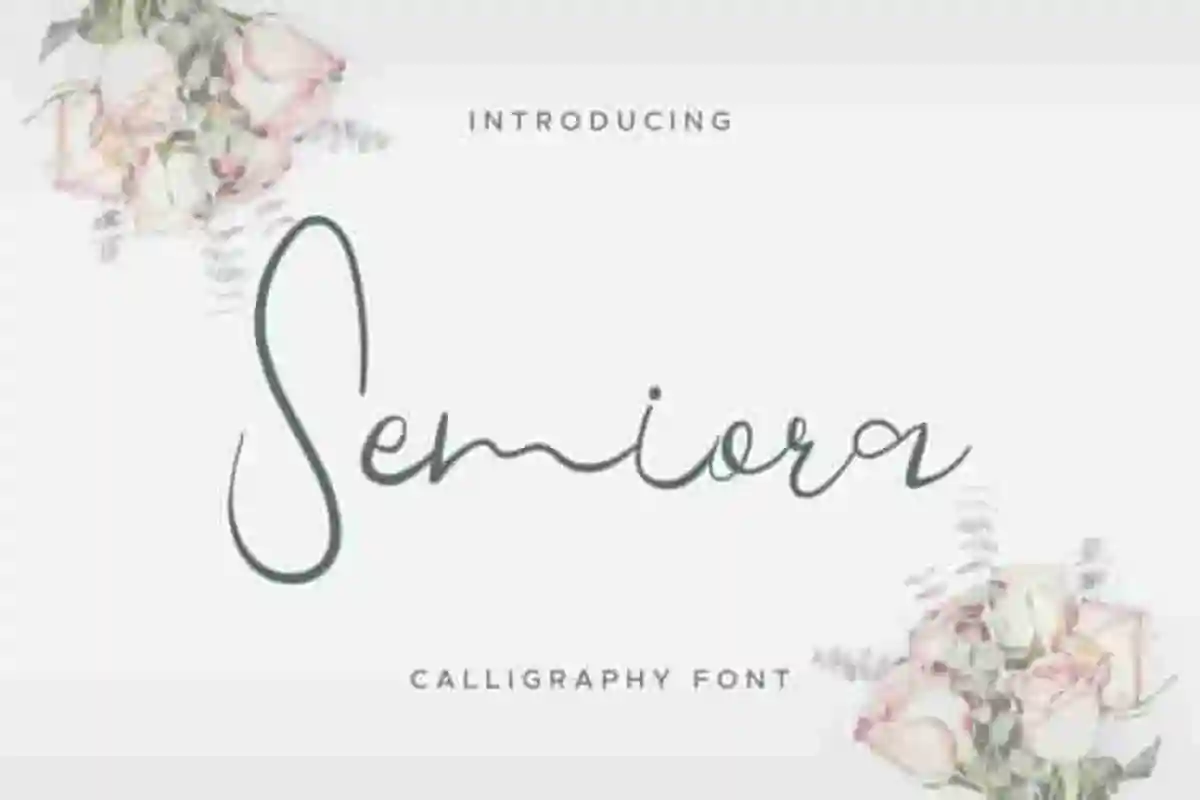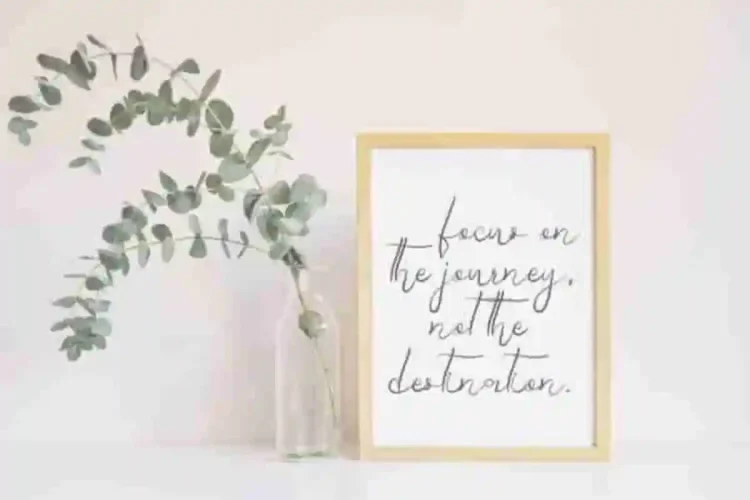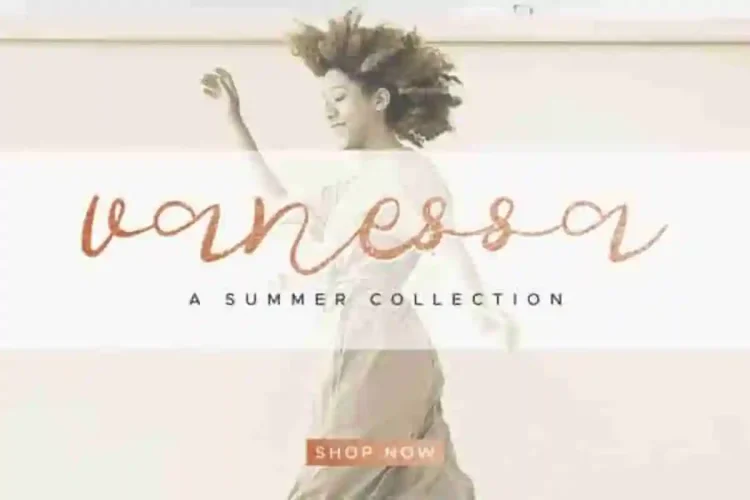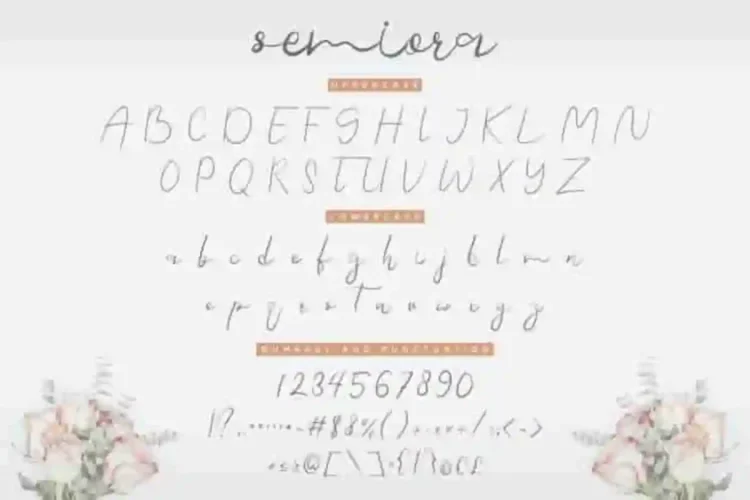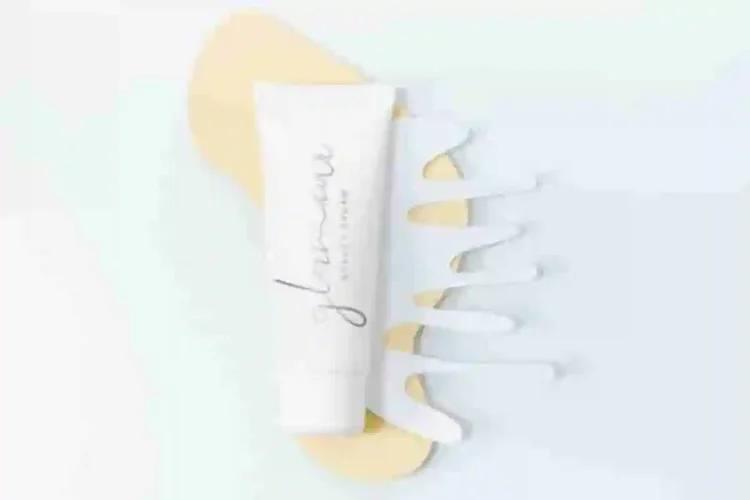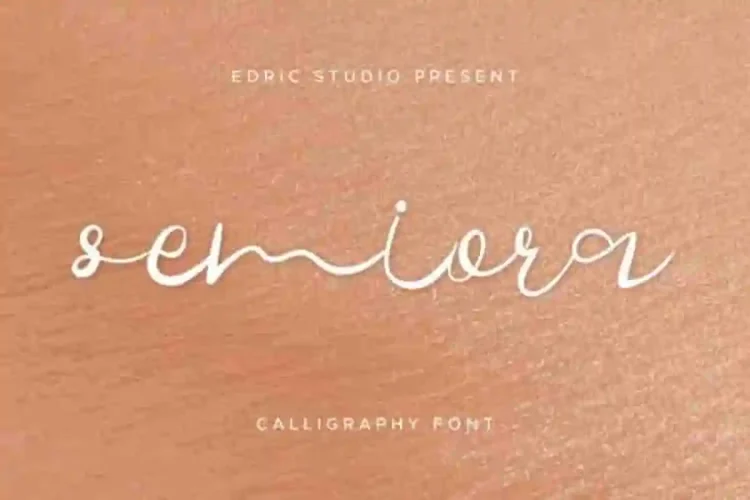
Semiora Handwrittng Script Font
Introducing our newest font. It is a Handwritting font, handcrafted from our Studio here in, Indonesia. The artists/designers of this beautiful tyeface is Yasri and Suci.
Semiora Handwritting Script Font is an exclusive Signature script typeface with brush style. This font has a stunning characters set, perfectly managed with well spaced and kerning.
Semiora Handwritting Script Font will be great for any projects including : branding, logo, stationery, business card, signage, flyer, brochure etc. Almost all industries will be match for this typeface: wedding, events, real estate, architect, law firm, florist, gardening, makeup artist, travel, hotel, musician etc.